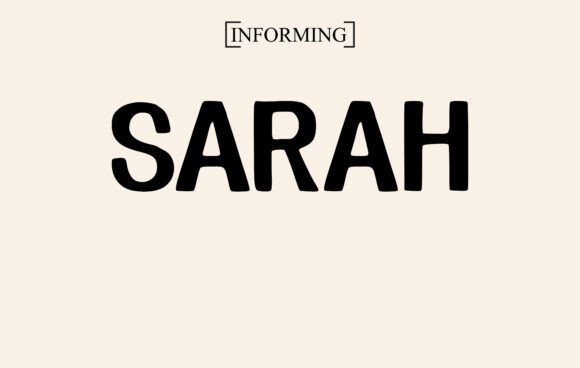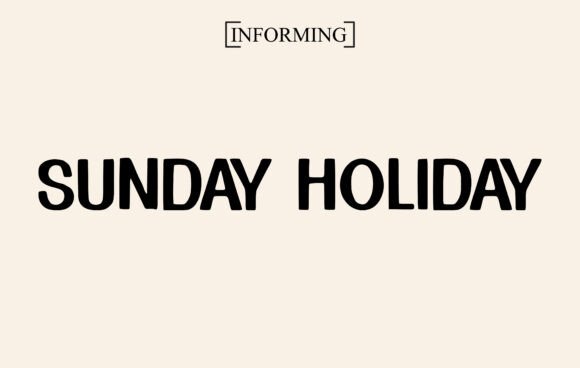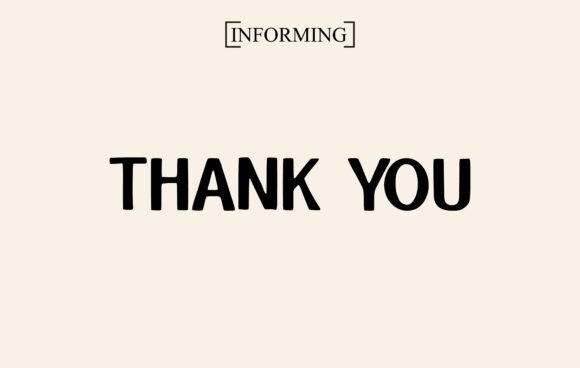
Sarah Font: A Modern Sans Serif for Clean & Minimalist Design
About the Sarah Font
Experience the unique personality of Sarah Font, a font designed for impact. Sarah is designed to be a true favorite; this font has the potential to take your creative ideas to the highest level